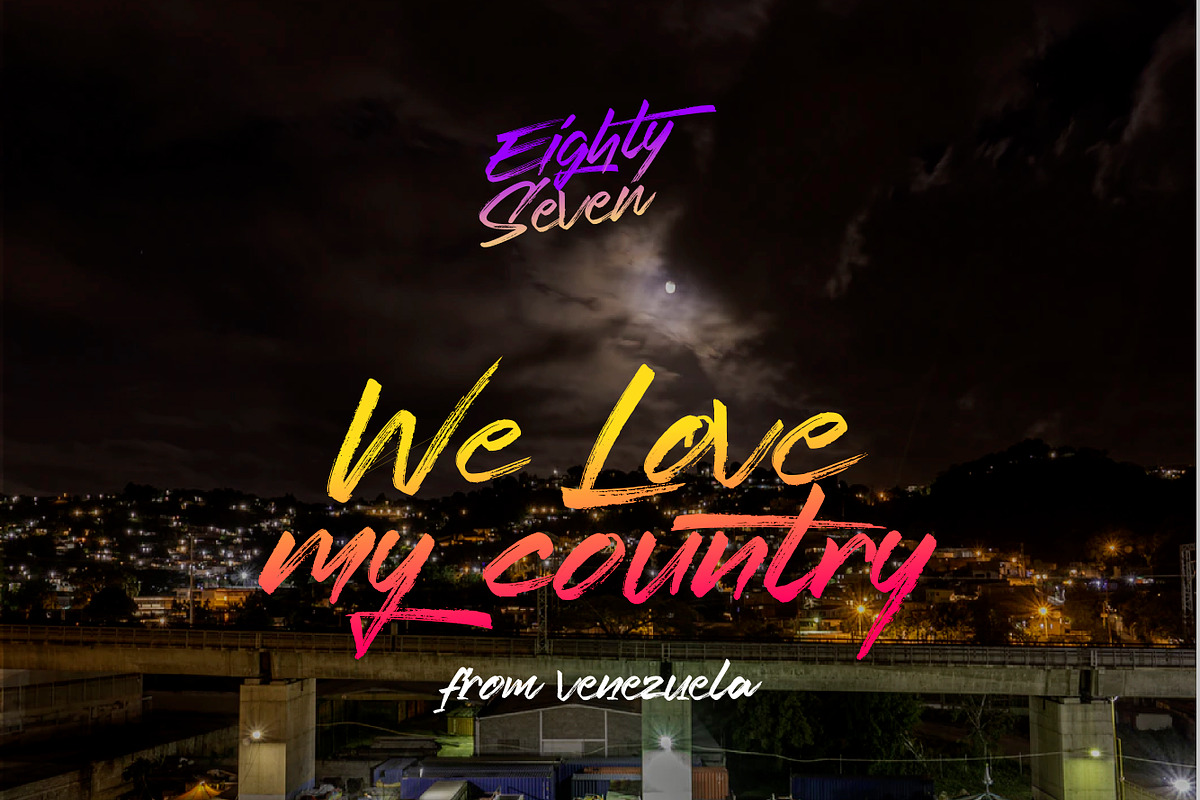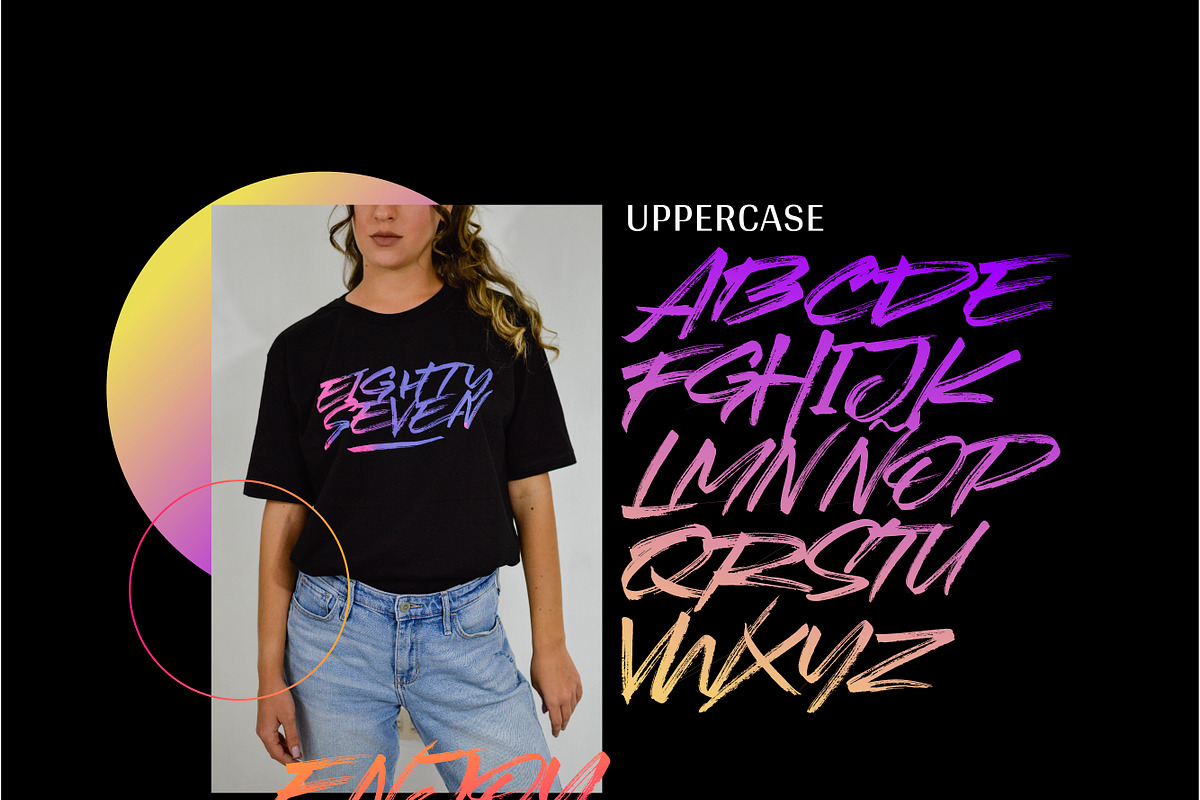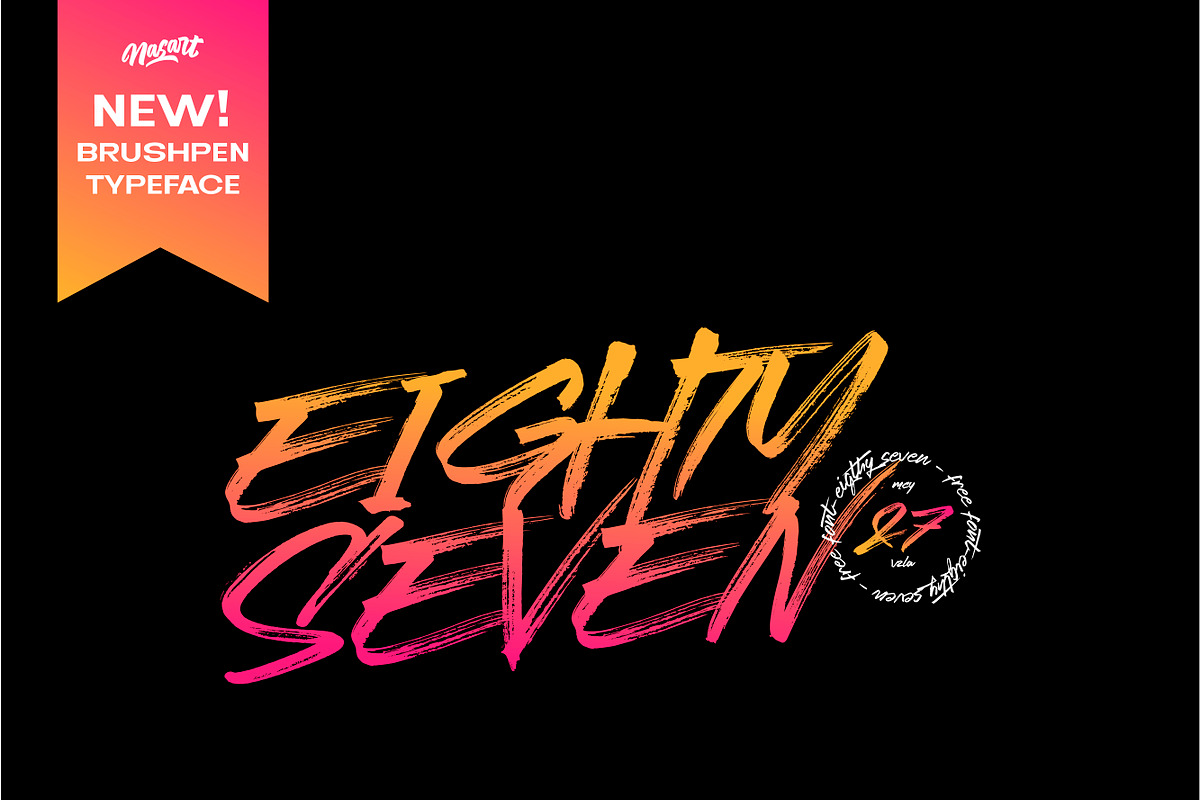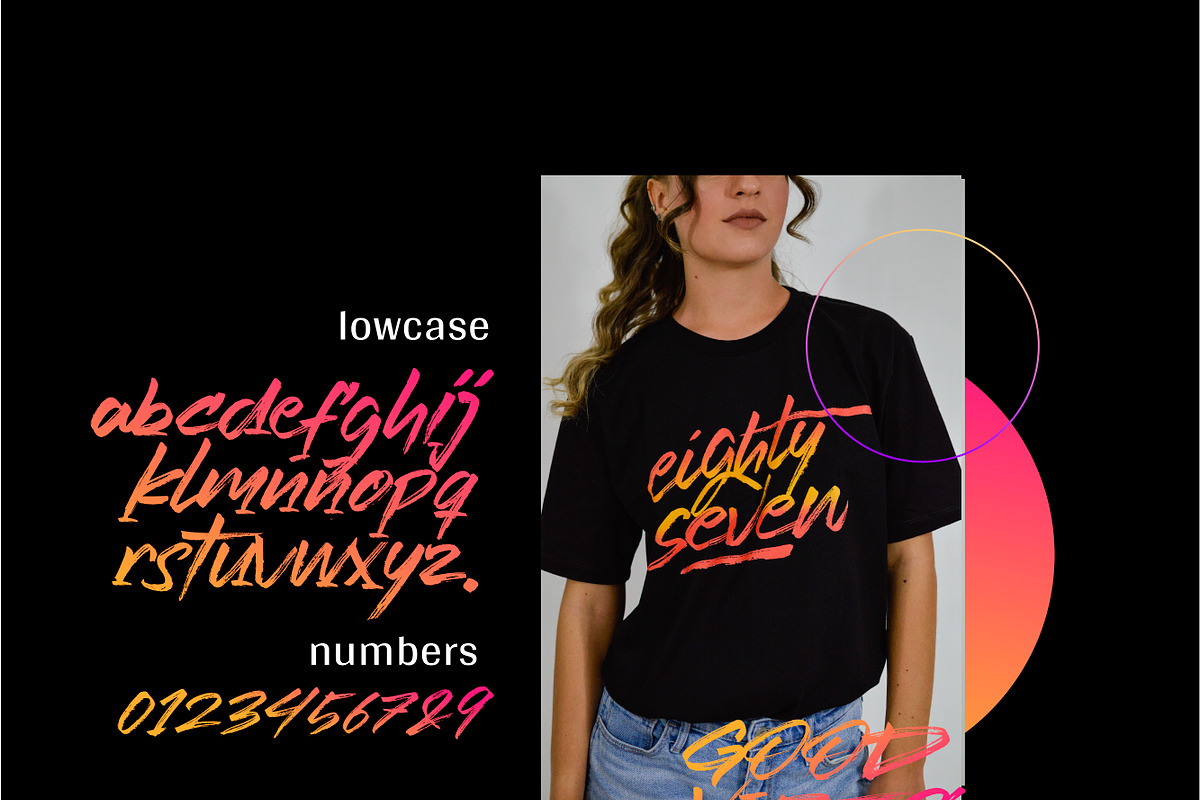
LT EIGHTY SEVEN
Eighty-Seven Brush Typeface is a typeface made with love for you. This typeface can be helpful to for logos, posters, postcards, and graphic arts in general. Eighty-Seven comes from a brushstroke, hence its finished brush effect. So, download it and may all the good vibes come to you!